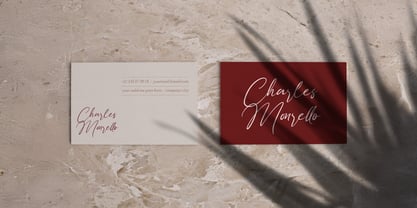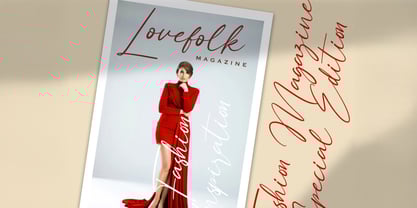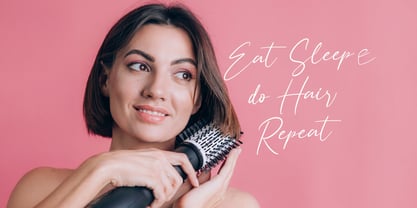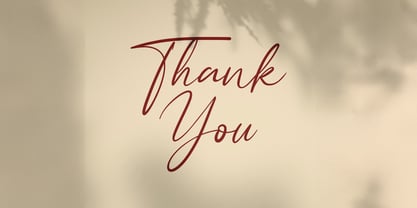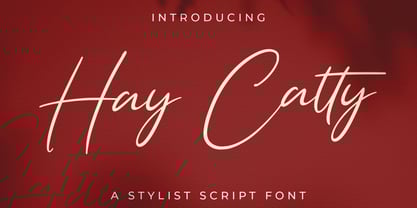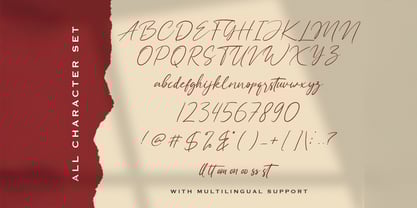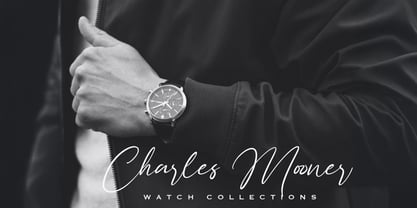
The Hay Catty Font Family was designed by Virgiawan Listanto and published by Stringlabs Creative Studio. Hay Catty contains 1 styles.
Hay Catty is a playful handwritten font full of charm and personality. With its casual strokes and lively feel, this font brings a warm, friendly vibe to any project perfect for creatives who want their designs to feel fun, approachable, and genuine. Whether you're working on branding, greeting cards, or social media content, Hay Catty adds a touch of whimsy and heart to your work.
Hay Catty